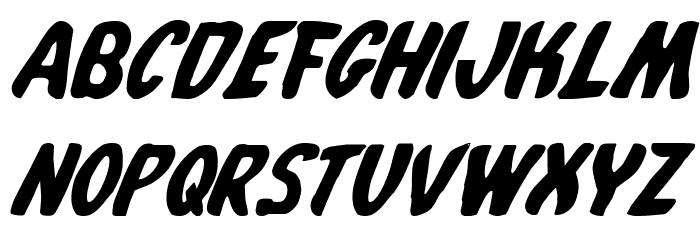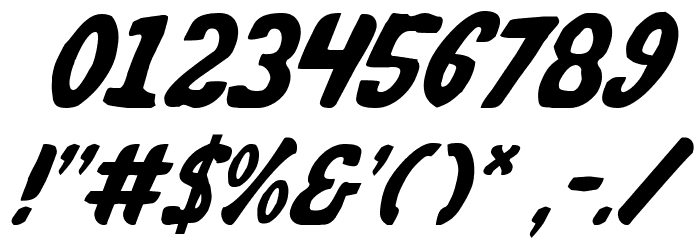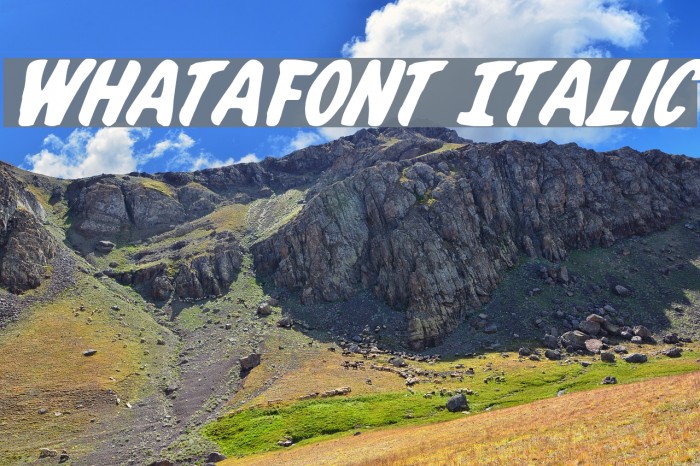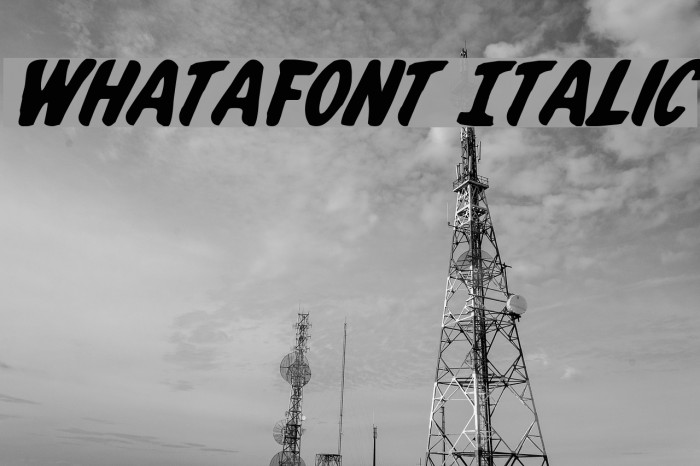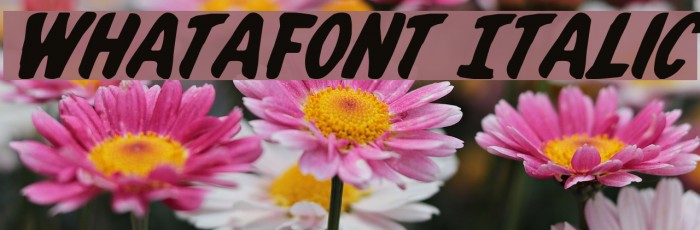
Whatafont Italic Font
This font features a bold and dynamic style with a strong italic slant, giving it a sense of motion and energy. The characters are thick and rounded, providing a robust and impactful appearance. The uppercase and lowercase letters maintain a consistent style, with smooth curves and a slightly condensed form. The numerals are equally bold, ensuring readability and uniformity across different uses. Special characters are well-integrated, maintaining the font's cohesive look. This font's energetic and bold characteristics make it suitable for attention-grabbing designs.
A bold, italic font with a dynamic and energetic style.
- Proposed Projects: Ideal for sports branding, dynamic posters, and eye-catching headlines.
- Width: Condensed